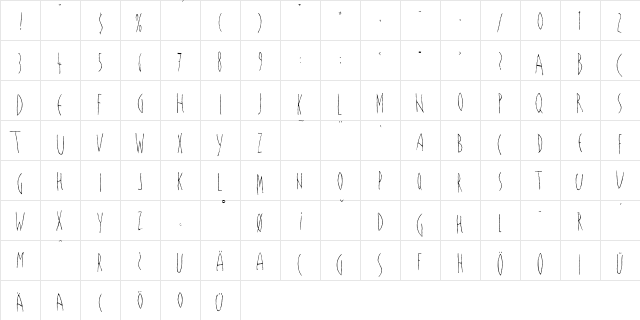
LasBonitas Light
Design Context for LasBonitas Typeface
LasBonitas offers clean, dependable letterforms without strong stylistic allegiance, making it a practical choice for designers who need flexibility. The delicate stroke weight brings airiness and refinement to layouts.